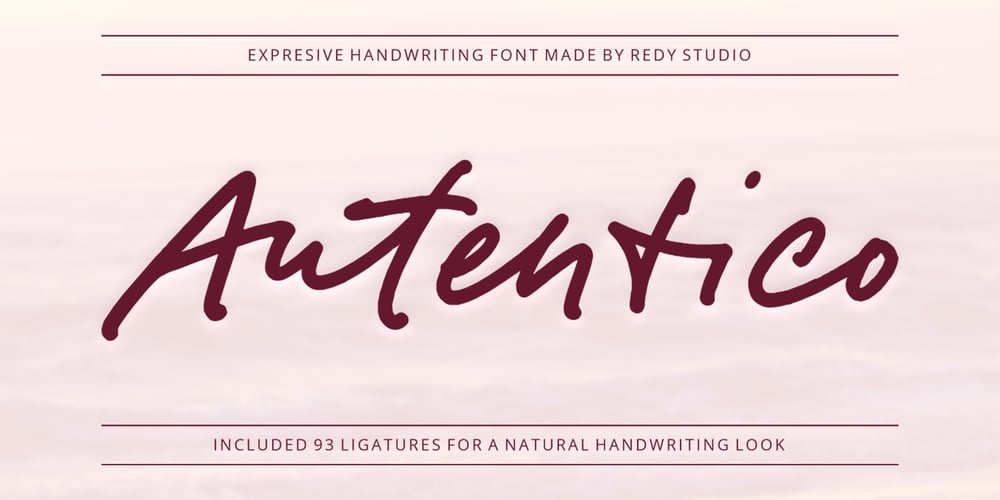
Autentico realistic handwriting
Autentico realistic handwriting font
Autentico realistic handwriting Font Family was designed by Nurul Fajri Redy and published by Redy Studio. Autentico realistic handwriting contains 1 styles and family package options. Beautiful and sexy handwriting types. You will love the look of this font. Autentico font was inspired by modern calligraphy, but with a more crushed look, making it perfect for wedding invites, greeting cards, or logos. Use the upper case letters to add elegance to images or give your design some style. We included a full set of lower and upper case letters, numbers, punctuation marks, and 93 ligatures to take your design to the next level.Authentico features: A full set of upper & lowercase characters Numbers & punctuation 93 Gorgeous ligatures Alternates in lowercase Multilingual symbols PUA Encoded Characters – Fully accessible without additional design software. Feel free to give me a message if you have a problem or question. Thank you so much for taking the time to look at one of our products.